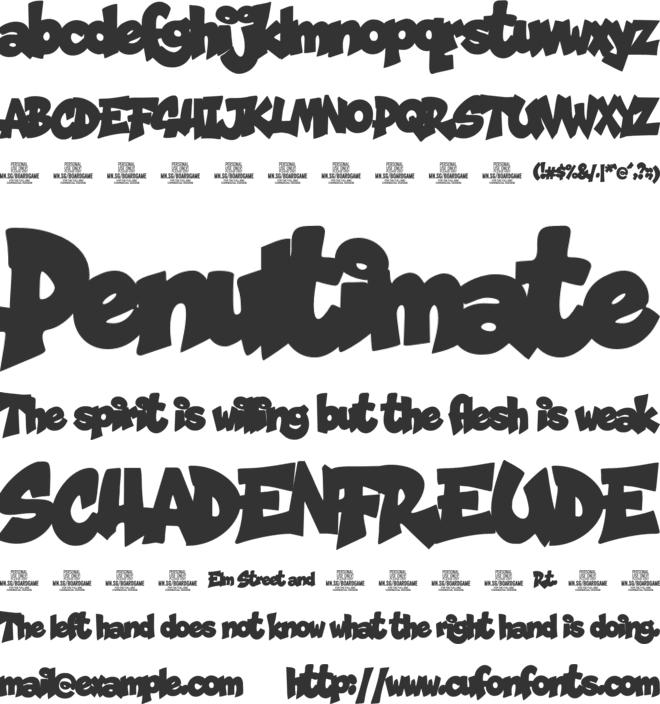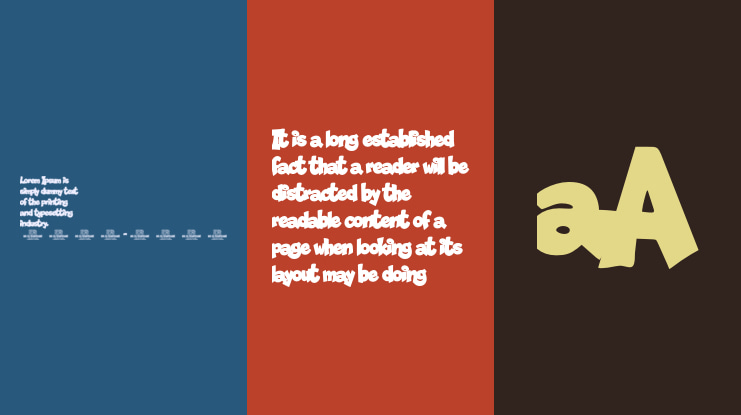
Boardgame Plain PERSONAL USE Font Family
NOTE: This font is for PERSONAL USE ONLY!To purchase a commercial license, visit:https://www.mansgreback.com/product/boardgameBoardgame is a bold and playful comic typeface with a strong, friendly presence and a clear sense of fun.The letterforms are chunky and optimistic, with an exaggerated weight that makes every word feel lively and approachable. For questions, please visit https://mansgreback.com/faq